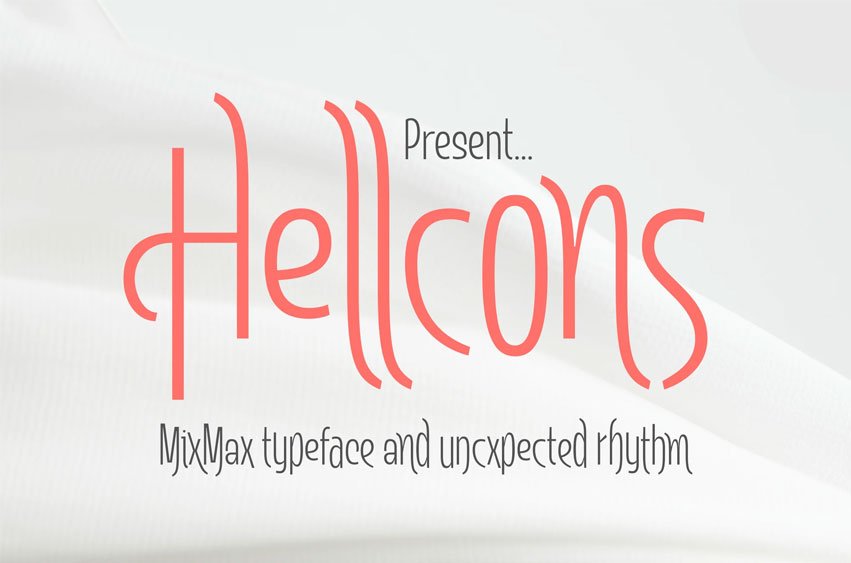
Hellcons Font is a playful wobble and unpredictable baseline font that gives your designs a confident charm with a wink. Perfect for standout branding, punchy posters, and anything that shouldn’t take itself too seriously
- 49 Alternate character